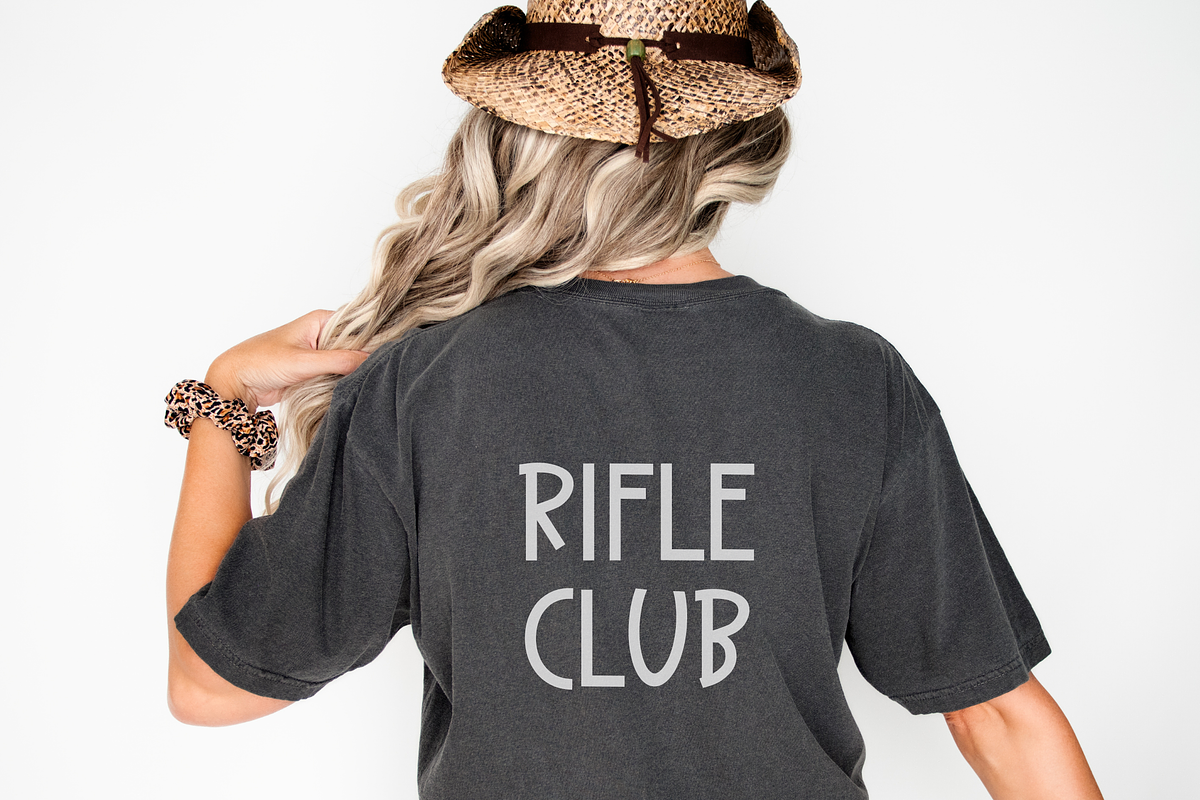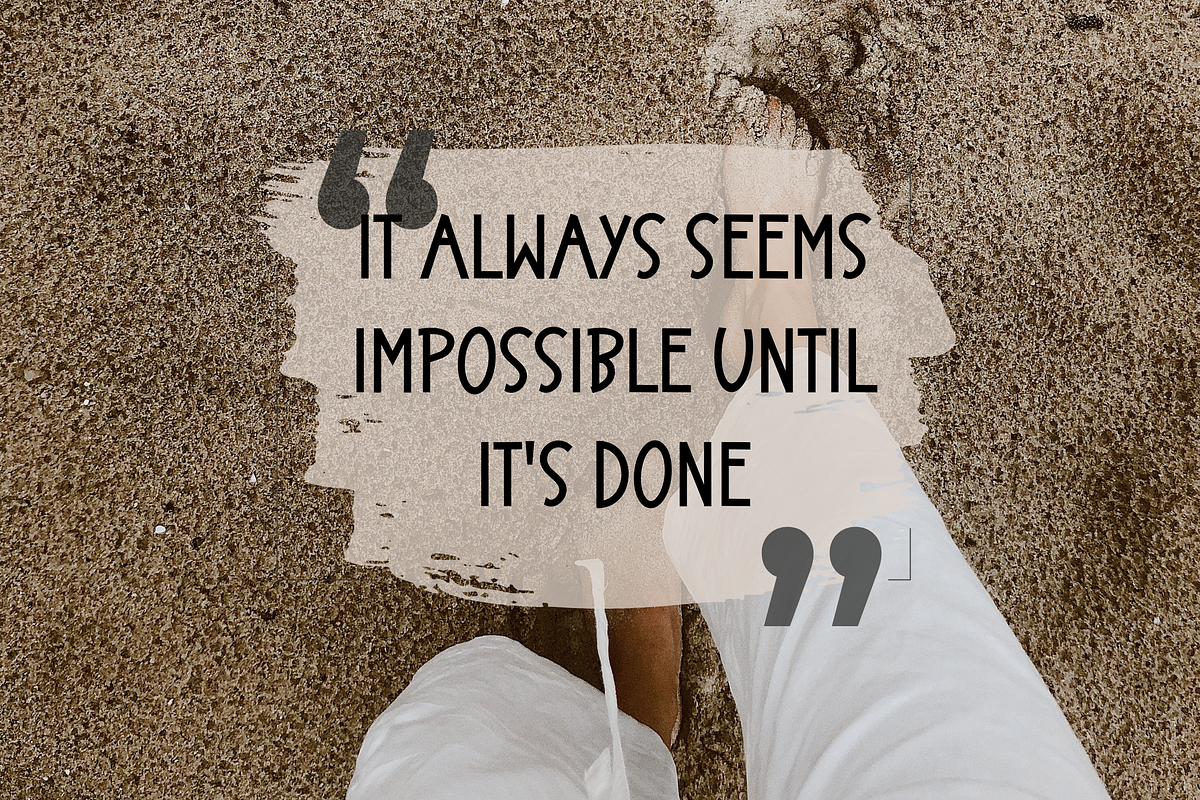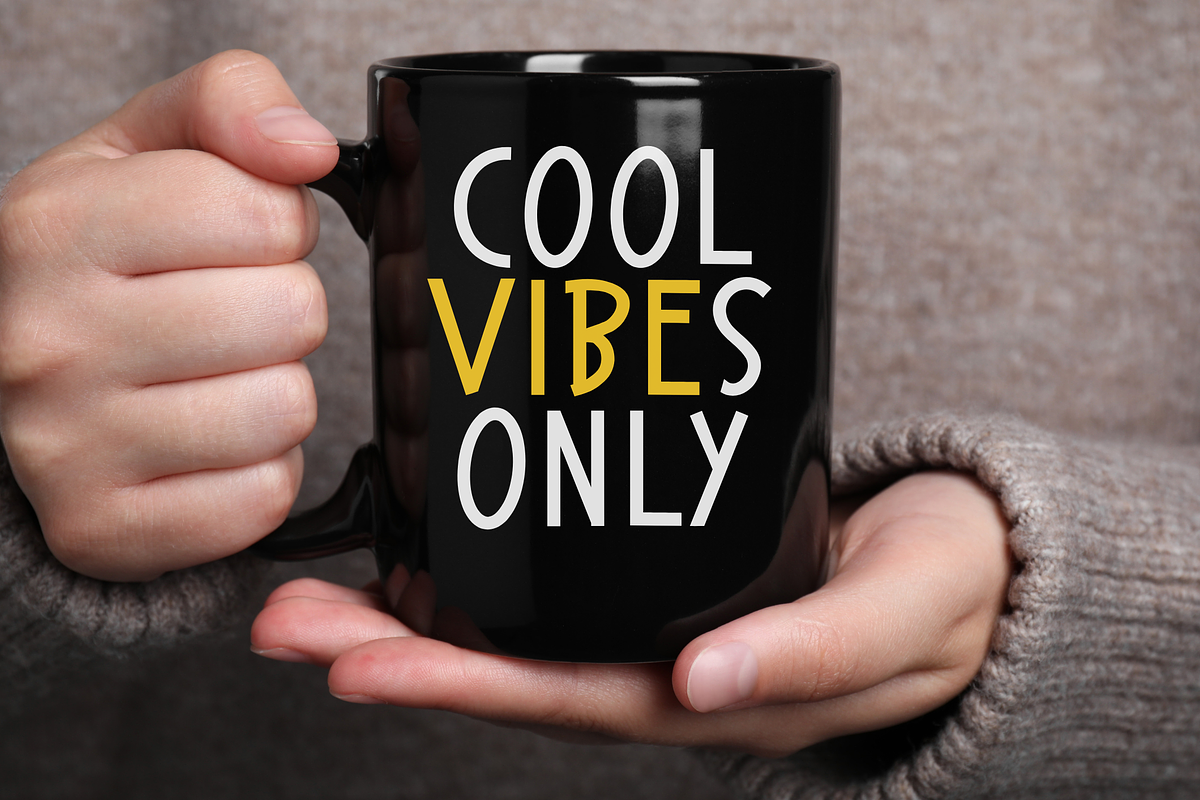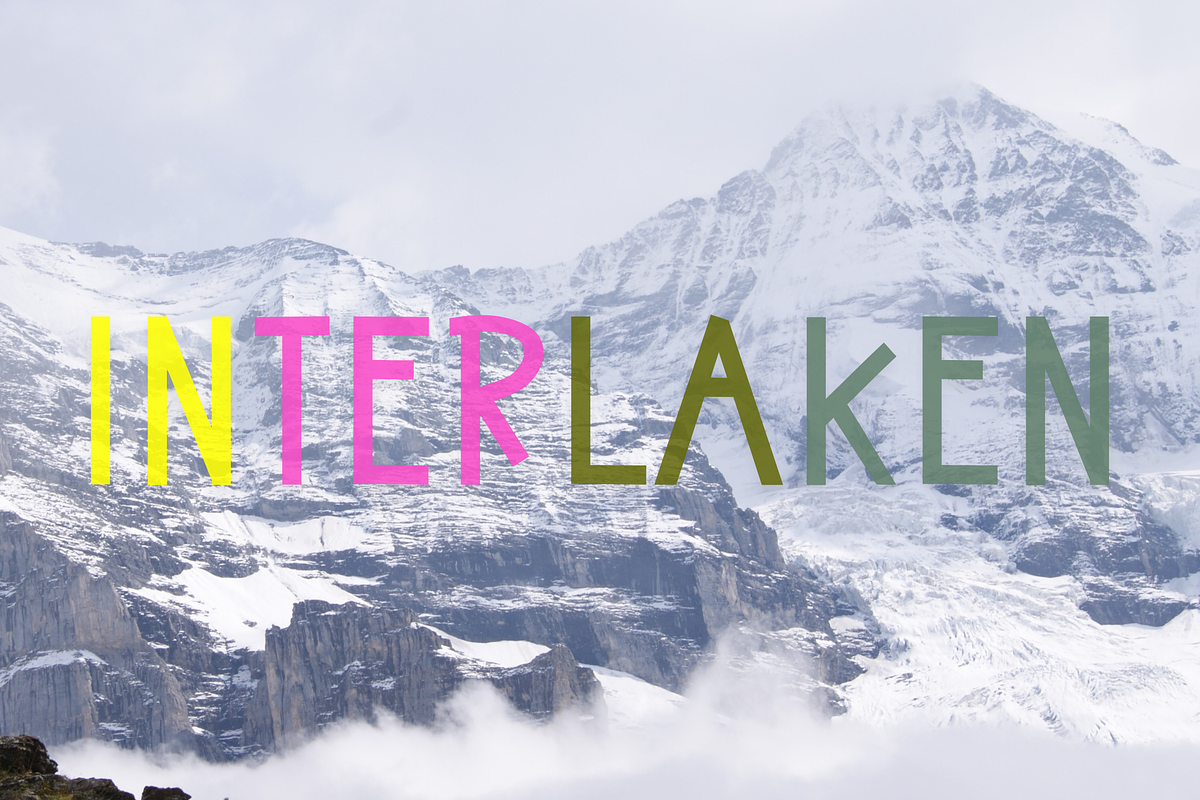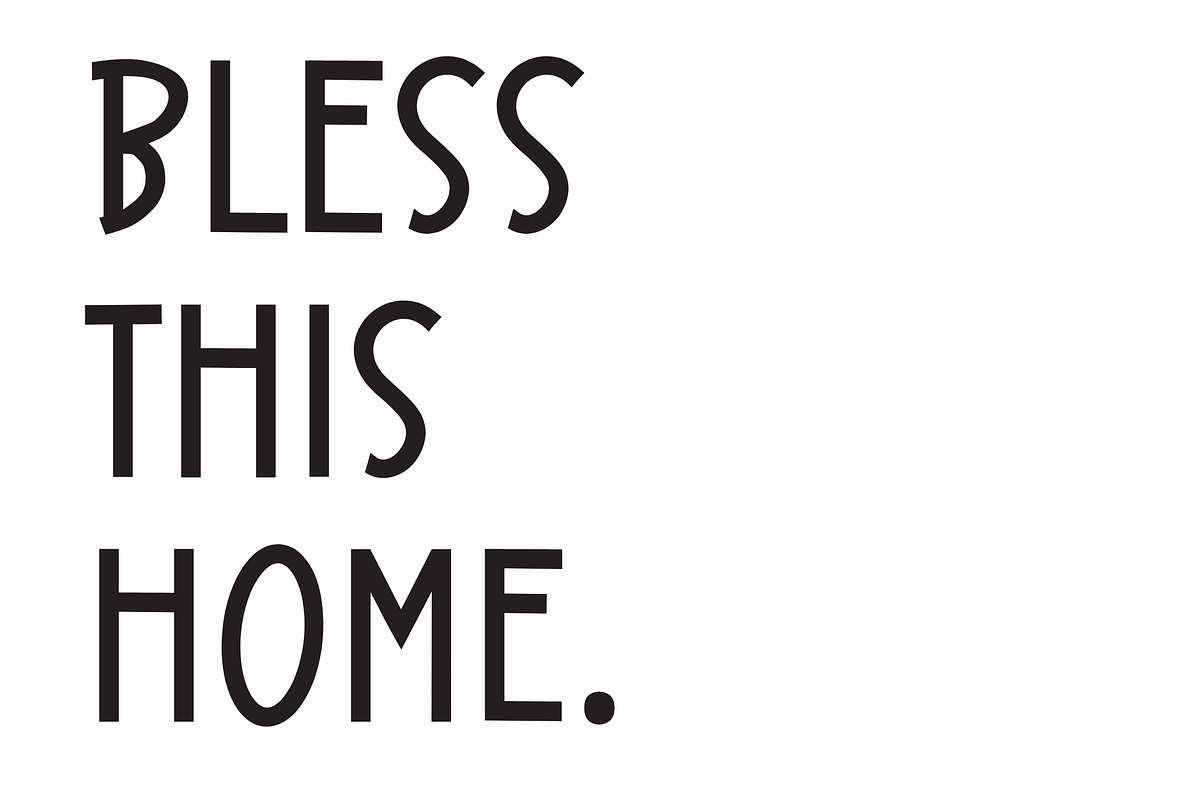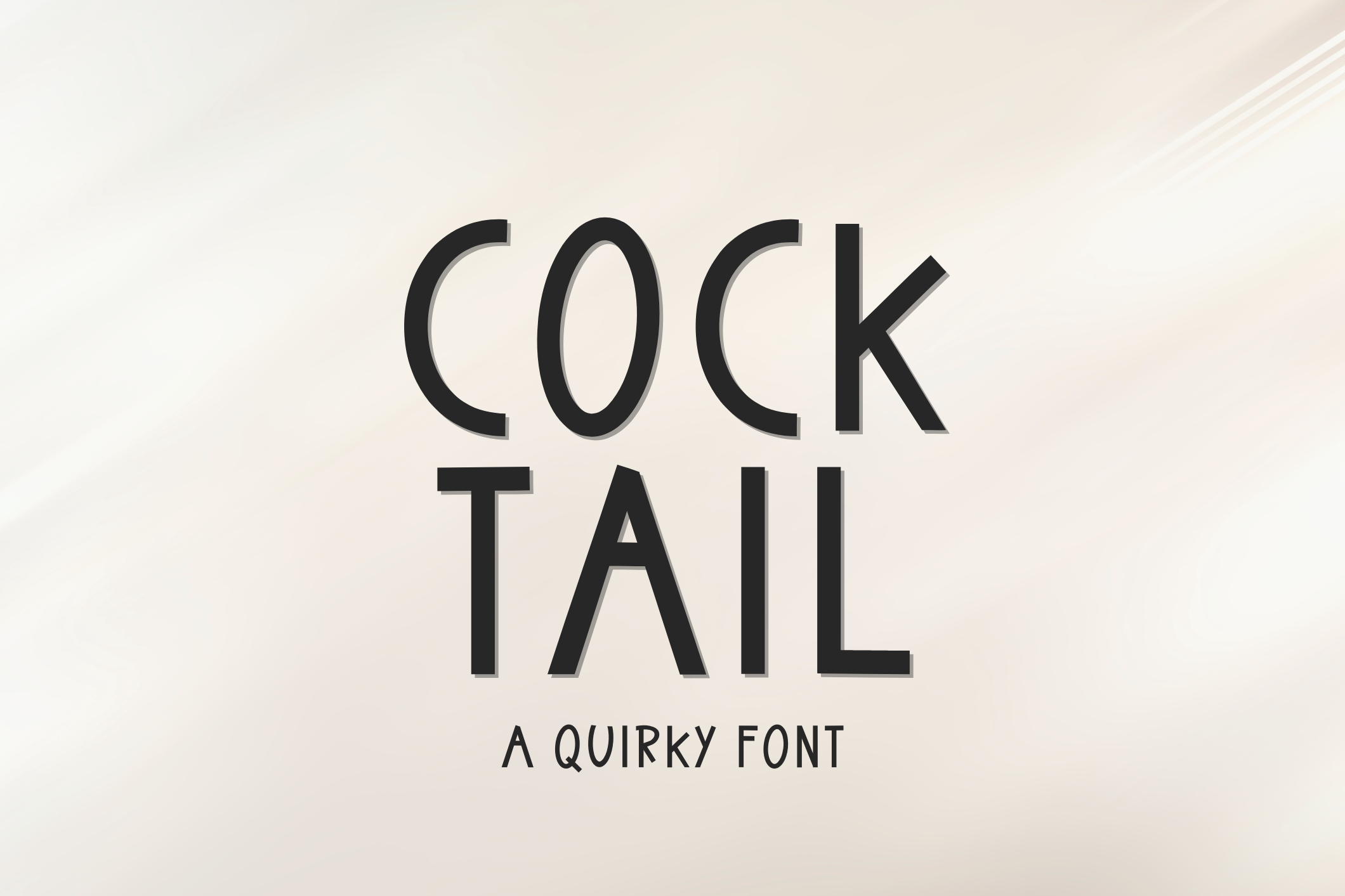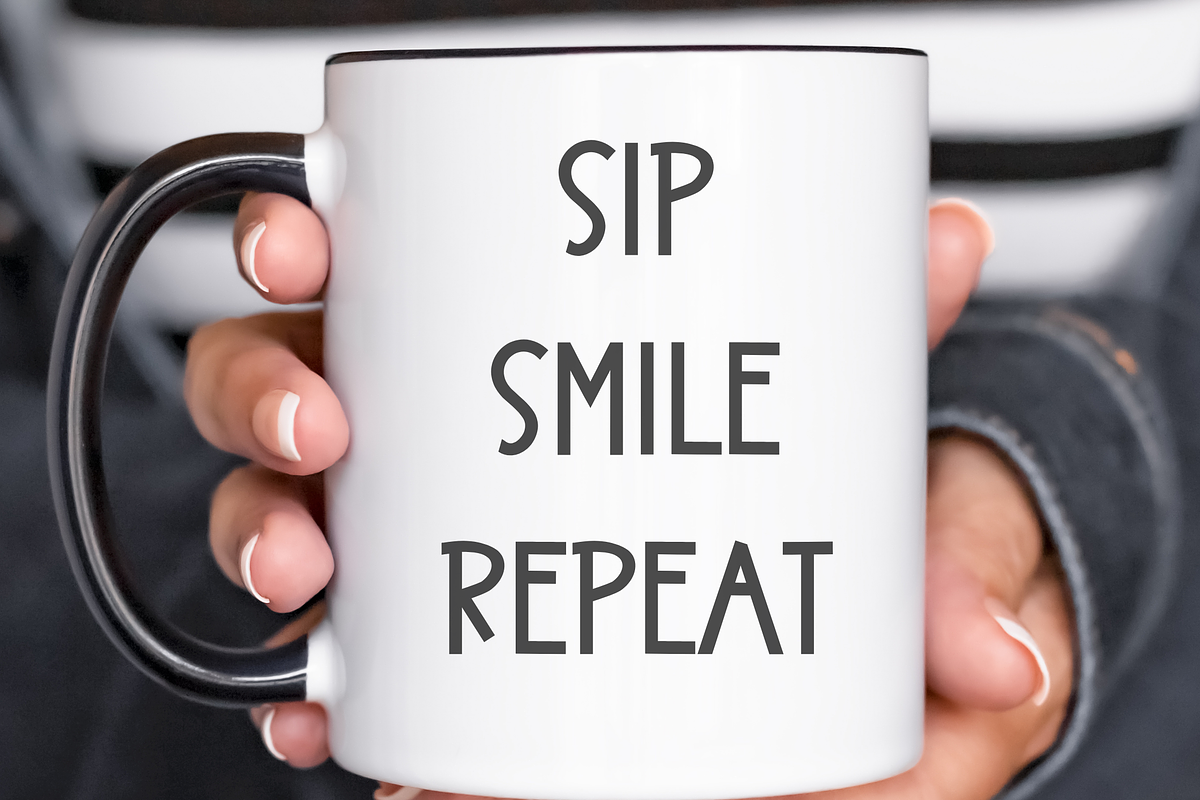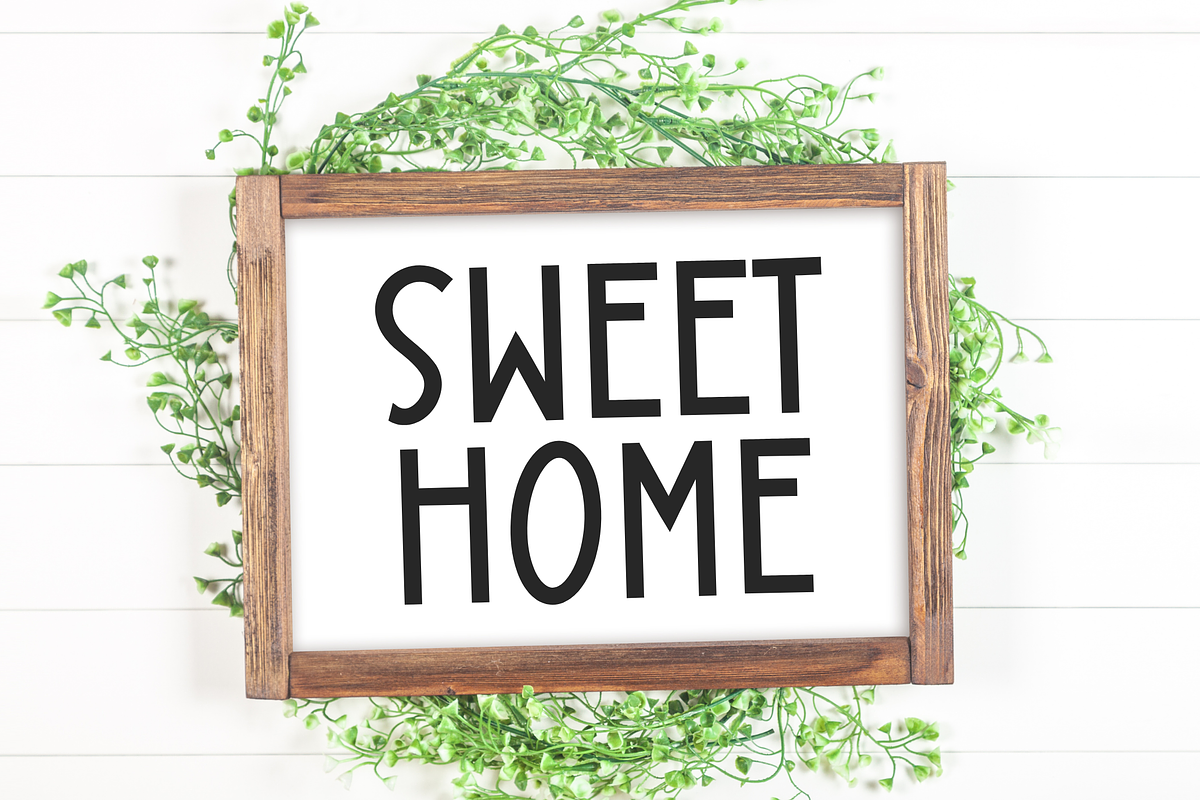
Cock tail - quirky handwritten font
This is an all caps font*
No numbers, lowercase included.
Cock tail font is perfect for: cricut crafts, canva, logos, branding, svg files, greeting cards, procreate, shirts, posters, social media, planner prints and more!